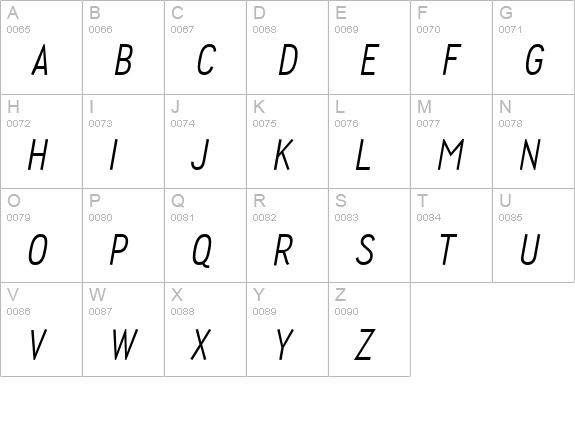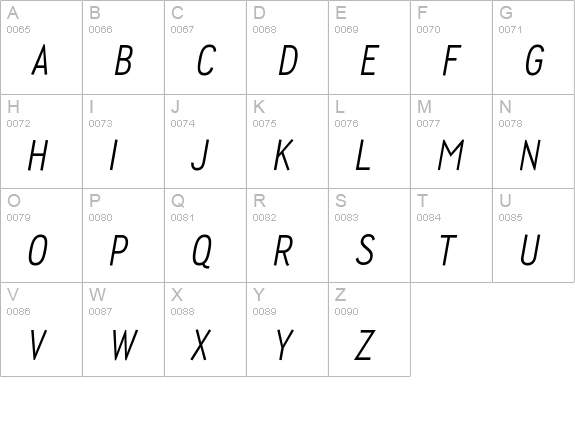
Wyvern Italic Font Details
Wyvern Italic is a distinctive, italic variant in the Wyvern typeface family \xE2\x80\x94 well suited to design and typography projects.
Wyvern Italic font is a sleek and sophisticated typeface that exudes elegance and modernity. Its slanted design adds a touch of dynamism to any project, making it perfect for branding, headlines, and editorial layouts. The finely crafted letterforms of Wyvern Italic strike a perfect balance between classic and contemporary styles, making it a versatile choice for a wide range of design applications. What's even better is that Wyvern Italic font is available for free download at FontsMarket.com. This means that you can easily access this high-quality typeface without any cost, making it an excellent option for designers looking to elevate their work without breaking the bank. Don't miss out on this opportunity to enhance your projects with the stylish and sophisticated Wyvern Italic font – download it for free today!